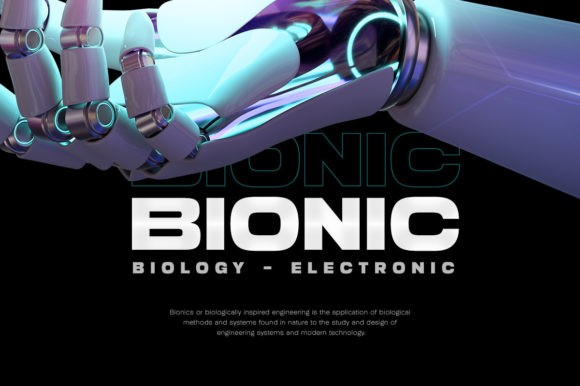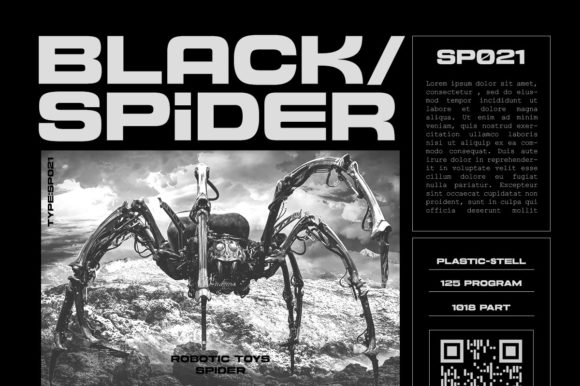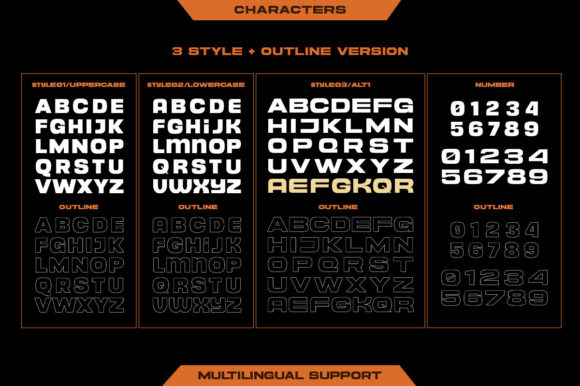
Introduction to Cyberion Font
Imagine you’re working on a high-profile design project, and you need that one special font to give it an edge. You scroll through your design resources, searching for the perfect match. And then, it hits you – the sleek, futuristic lines of the Cyberion Font. This cool, bold, and thick lettered display font is exactly what you need to take your creative project to the next level.
Whether you’re a seasoned pro or just starting out, the Cyberion Font is a valuable asset to have in your design toolkit. So why settle for ordinary when you can have extraordinary? Discover the power of the Cyberion Font and take your designs to new heights.
Key Features of Cyberion Font
- High-quality design: Cyberion Font is a premium font that offers crisp and clear typography, making it perfect for any creative project.
- Large character set: Cyberion Font includes a large character set, including uppercase and lowercase letters, numbers, and special characters.
- Design resource: This font is a valuable resource for designers, artists, and creatives, offering a unique and stylish look for any project.
Honest Review: Cyberion Font
I recently had the chance to work with the Cyberion Font, and I must say it’s been a great addition to my design resource library. This font is perfect for creative projects that require a futuristic and edgy vibe. With its high quality design, it’s clear that the creators put a lot of effort into crafting a truly unique and engaging typeface.
- High quality design that’s perfect for creative projects.
- Available in a variety of weights and styles, making it versatile and easy to use.
While the Cyberion Font is a great addition to any design library, I did find a few limitations that might make it less suitable for certain projects. For example, the font may not be as readable in smaller sizes, and some users may find the design too futuristic or overwhelming.
Overall, I’m impressed with the Cyberion Font, and I think it’s a great resource for designers who want to add a touch of futurism to their creative projects. With its high quality design and transparent background, it’s easy to see why this font is a popular choice among designers.
The Cyberion Font is ideal for creative projects, such as graphic design, digital art, and typography. Its high-quality design and transparent background make it perfect for backgrounds, overlays, and text effects.